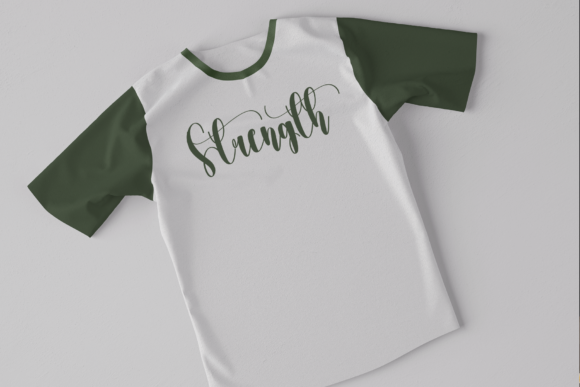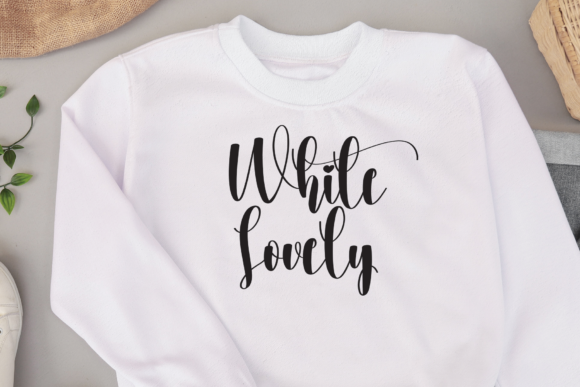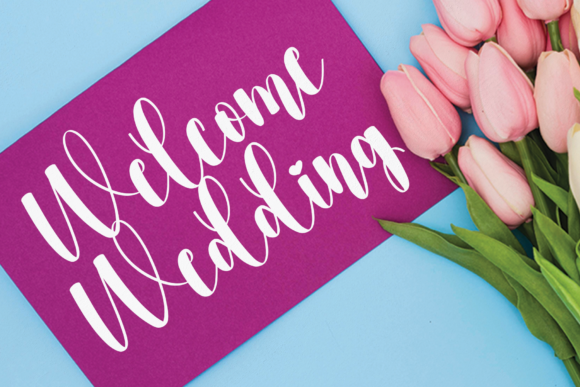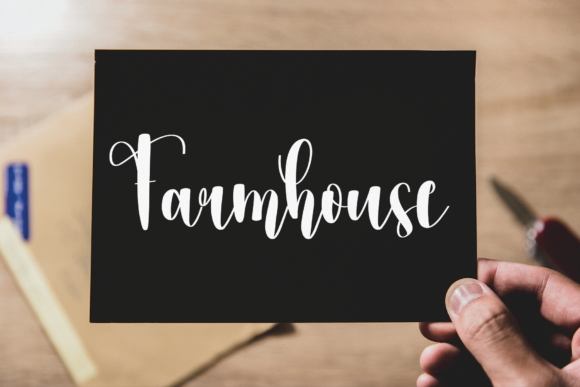
Introducing Girl Love Font: The Epitome of Elegance and Class
In the realm of typography, few fonts manage to capture the essence of sweetness and delicacy as perfectly as the Girl Love Font. This exquisite script font is a masterclass in elegance, designed to infuse your designs with a refreshing and sophisticated aesthetic. Whether you’re a seasoned designer or a crafting enthusiast, Girl Love Font is poised to become your go-to choice for projects that demand a touch of class.
The Genesis of Girl Love Font
Girl Love Font was meticulously crafted with a singular goal in mind: to provide a beautiful and refreshing look to designs across various platforms. The creators of this font understood the need for a typeface that could convey emotion and sophistication simultaneously, leading to the development of Girl Love. This font is not just a collection of letters; it’s an experience, a statement that elevates your work from mundane to magnificent.
Characteristics of Girl Love Font
So, what makes Girl Love Font stand out in a sea of typefaces? Here are a few key characteristics that set it apart:
• Sweet and Delicate: The font’s design is inherently sweet and delicate, making it perfect for projects aimed at a feminine audience or those requiring a touch of softness.
• Script Elegance: As a script font, Girl Love boasts fluid connections between letters, creating a harmonious and elegant flow that’s hard to achieve with standard fonts.
• Versatility: Despite its delicate nature, Girl Love Font is surprisingly versatile, suitable for a wide range of design projects from wedding invitations to brand logos, and from digital content to print materials.
Applications of Girl Love Font
The applications of Girl Love Font are as diverse as they are exciting. Here are a few ideas to get you started:
• Wedding and Event Planning: Create stunning wedding invitations, save-the-date cards, and event banners that set the tone for a classy and memorable occasion.
• Branding and Marketing: Elevate your brand’s visual identity with a logo or marketing materials that exude elegance and sophistication.
• Stationery and Crafts: Add a personal touch to your handmade cards, journals, and other craft projects with the charming and feminine appeal of Girl Love Font.
• Digital Content: Enhance your blog posts, social media graphics, and website headers with a font that captures attention and conveys a sense of refinement.
Tips for Using Girl Love Font Effectively
To make the most out of Girl Love Font, consider the following tips:
• Pair with Complementary Fonts: For maximum impact, pair Girl Love Font with simpler, sans-serif fonts to create a balanced and visually appealing design.
• Adjust Size and Color: Experiment with different sizes and colors to ensure the font complements your overall design without overpowering it.
• Consider the Context: While Girl Love Font is versatile, it’s essential to consider the context and audience of your design to ensure the font aligns with the message you’re trying to convey.
Girl Love Font is more than just a typeface; it’s a design statement that speaks of elegance, class, and a touch of sweetness. Whether you’re a designer looking to elevate your projects or a crafter seeking to add a personal touch to your creations, Girl Love Font is an invaluable resource. With its delicate script and versatile applications, it’s poised to become a favorite in the world of design and crafting.